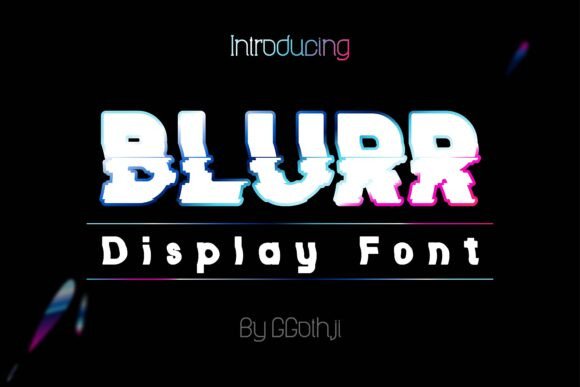
Blurr Font: The Ultimate Display Font for Creative Ideas
Are you looking for a font that can take your creative projects to the next level? Look no further than Blurr Font, an incredibly unique display font designed to make your ideas stand out. In this article, we’ll dive into the world of Blurr Font, exploring its features, benefits, and uses, and provide you with a comprehensive guide on how to make the most of this amazing font.
What is Blurr Font?
Blurr Font is a masterfully designed display font that is sure to become a true favorite among designers and creatives. Its unique and sleek design makes it perfect for a wide range of projects, from branding and advertising to packaging and digital media.
One of the standout features of Blurr Font is its ability to bring creative ideas to life. With its bold and eye-catching design, this font has the potential to elevate your projects to new heights, making them more engaging, memorable, and effective.
Benefits of Using Blurr Font
So, what makes Blurr Font so special? Here are just a few benefits of using this incredible display font:
- Unique Design: Blurr Font boasts a truly unique design that sets it apart from other fonts. Its sleek and modern aesthetic makes it perfect for projects that require a fresh and contemporary look.
- Versatility: Blurr Font is incredibly versatile, making it suitable for a wide range of projects, from digital media to print materials.
- Attention-Grabbing: With its bold and eye-catching design, Blurr Font is sure to grab attention and make your projects stand out.
- Easy to Read: Despite its bold design, Blurr Font is surprisingly easy to read, making it perfect for projects that require a clear and concise message.
Uses of Blurr Font
Blurr Font is an incredibly versatile font that can be used in a wide range of projects, including:
- Branding and Advertising: Use Blurr Font to create bold and eye-catching logos, advertisements, and marketing materials that grab attention and make a lasting impression.
- Digital Media: Blurr Font is perfect for digital media projects, such as social media graphics, videos, and website headers.
- Packaging: Add a touch of elegance and sophistication to your packaging designs with Blurr Font.
- Print Materials: Use Blurr Font to create stunning print materials, such as brochures, flyers, and posters.
Tips and Tricks for Using Blurr Font
Here are a few tips and tricks to help you get the most out of Blurr Font:
- Experiment with Different Sizes: Blurr Font looks great in a variety of sizes, so don’t be afraid to experiment and find the perfect size for your project.
- Play with Color: Blurr Font looks amazing in a range of colors, so try experimenting with different colors to find the perfect hue for your project.
- Use it Sparingly: While Blurr Font is incredibly eye-catching, it’s best to use it sparingly to avoid overwhelming your design.
In conclusion, Blurr Font is an incredibly unique and versatile display font that has the potential to bring your creative ideas to life. With its bold and eye-catching design, this font is perfect for a wide range of projects, from branding and advertising to packaging and digital media.